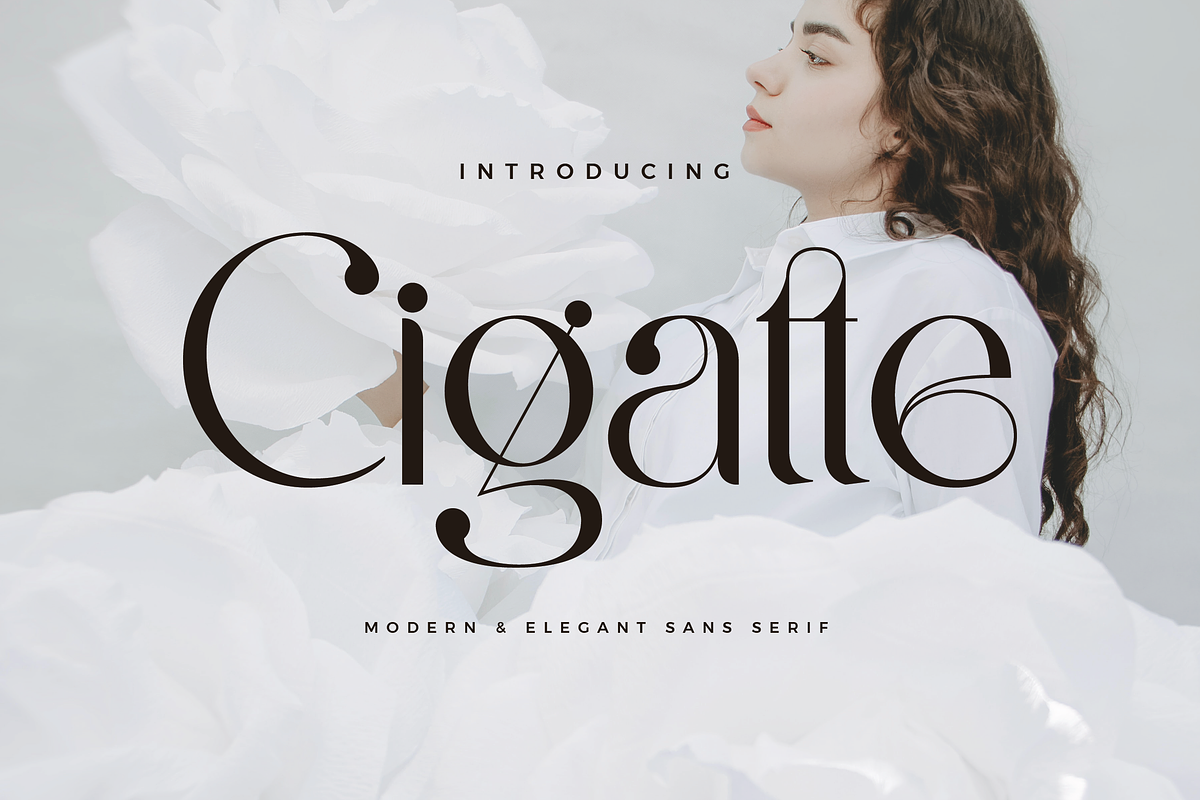
Cigatte Modern Sans Font Free Download is a clean, sleek, and contemporary typeface designed for modern branding and minimal design. With its crisp lines, balanced proportions, and subtle geometric flair, Cigatte is perfect for logos, websites, packaging, headlines, and corporate identity projects that need a professional and modern look.
Whether you're creating a startup brand or a clean editorial layout, Cigatte delivers clarity, sophistication, and versatility. It’s the ideal sans-serif font for designers who appreciate simplicity without sacrificing personality.